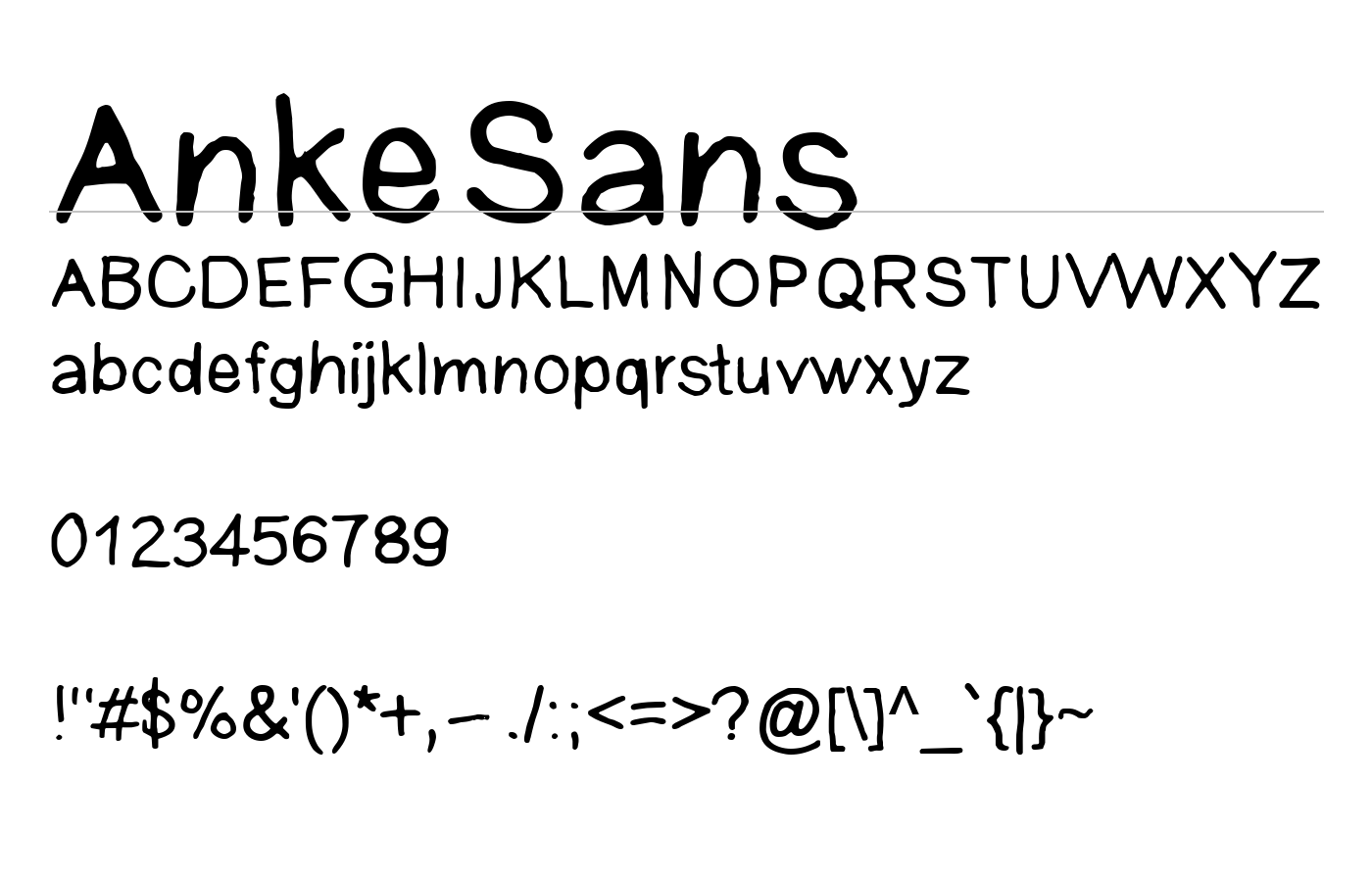
AnkeSans is a playful and casual sans serif font characterized by its irregular, hand-drawn style with soft, rounded strokes and a slightly condensed width. Its friendly, informal look makes it ideal for creative projects, children’s books, and branding that seeks a warm, approachable vibe. This font works well in headlines and short texts where personality and uniqueness are desired.
AnkeSans Font
About AnkeSans Font
| Font family | AnkeSans Font |
| Designer | Anke Arnold |